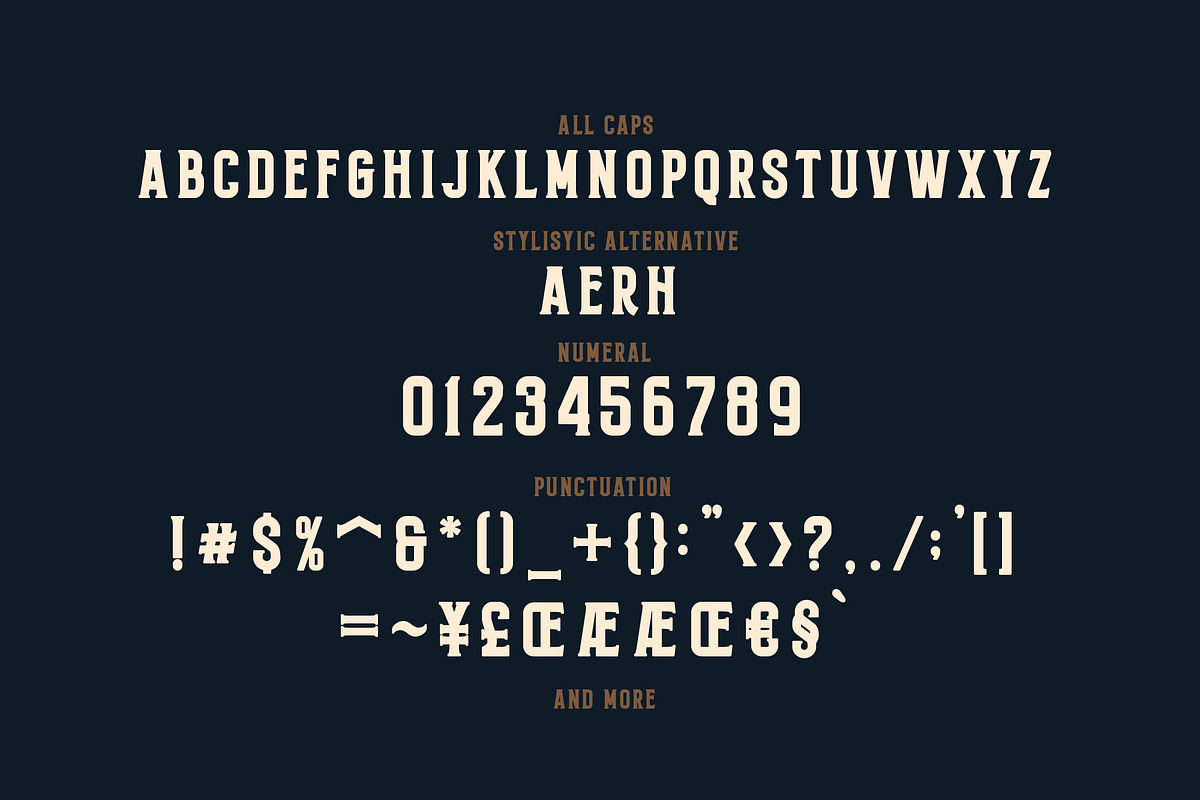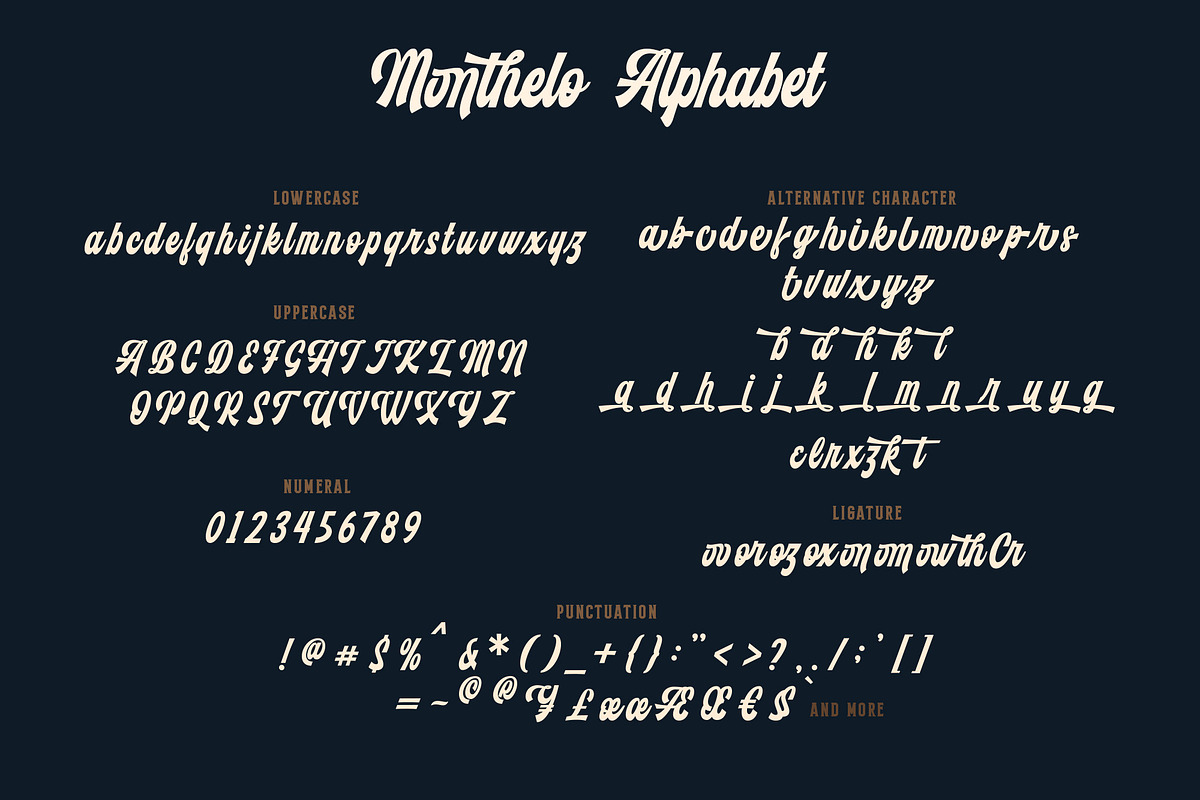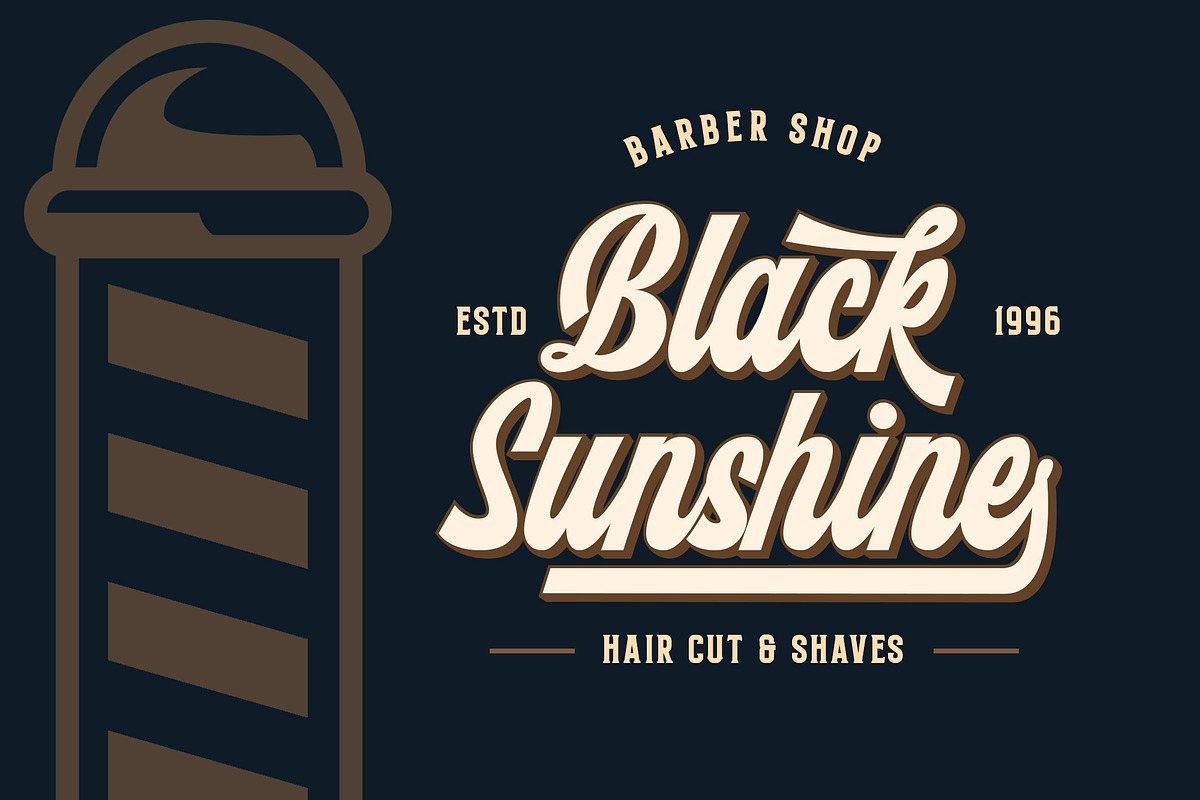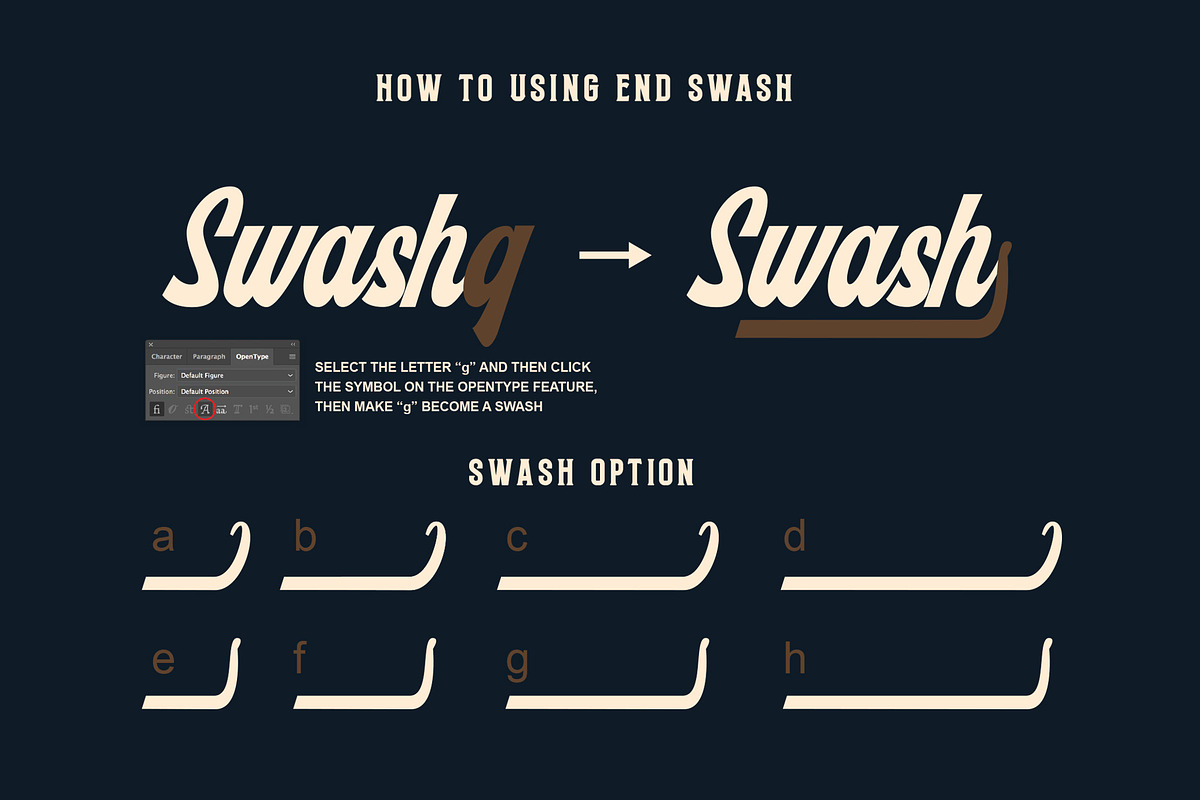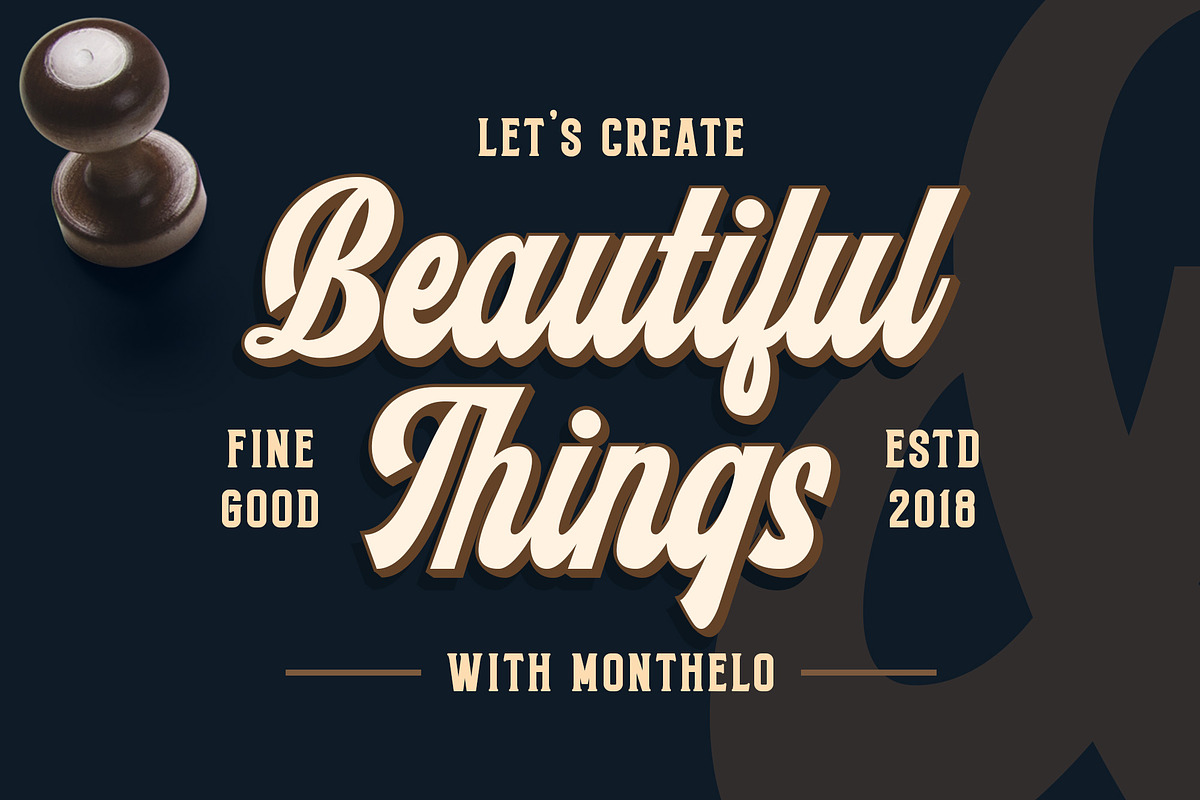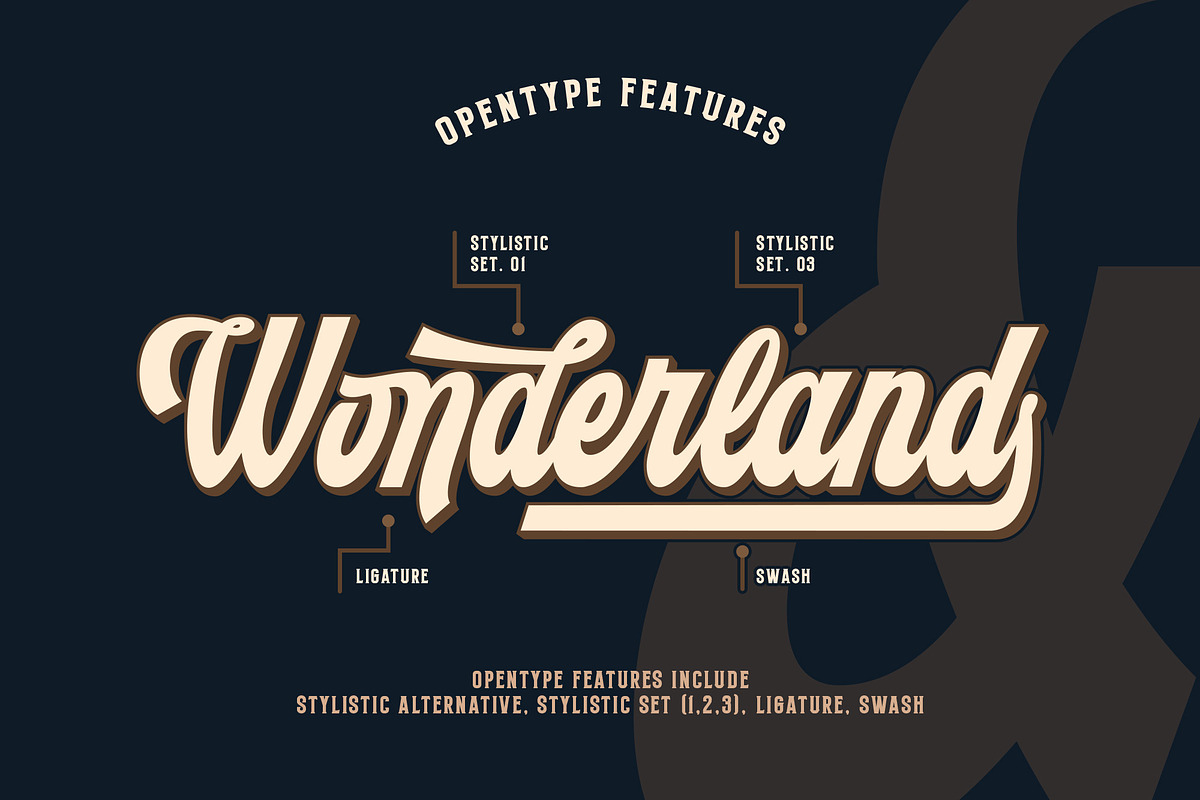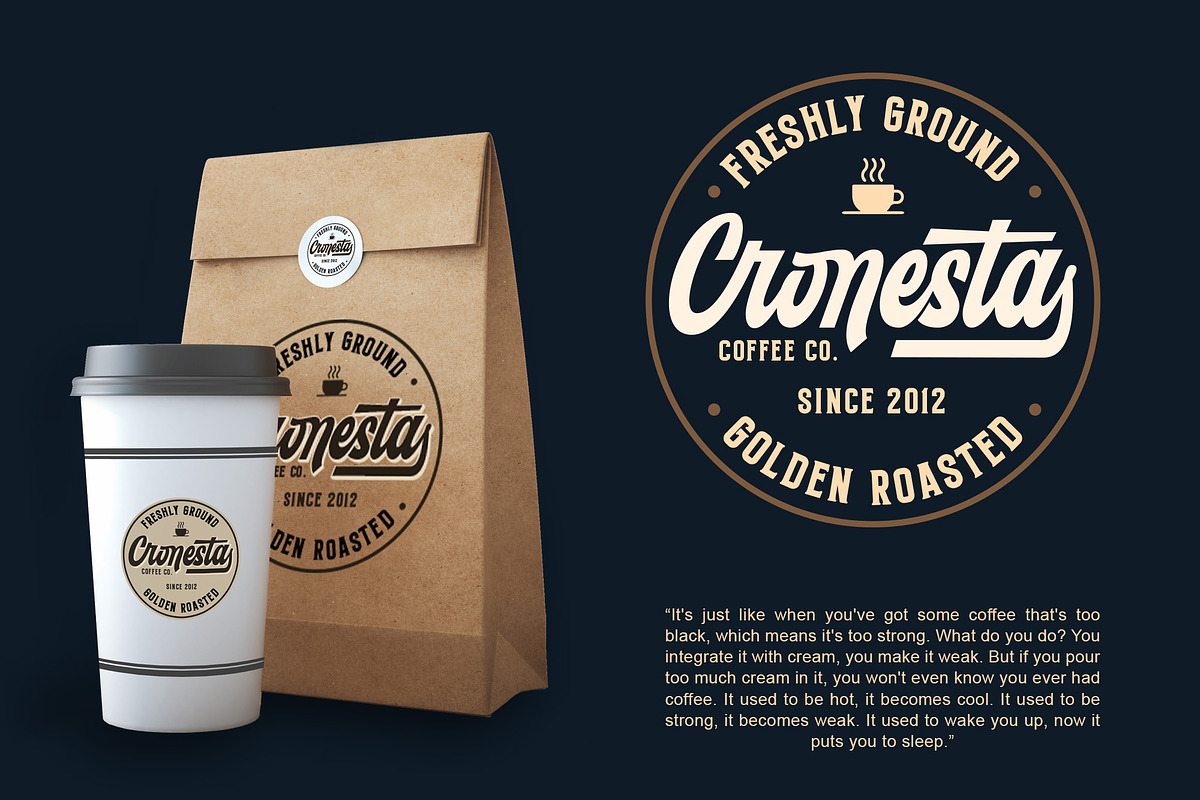
Monthelo Strong Bold Font
Monthelo font under inspiration of vintage bar signage, hotel signage, barbershop signage ect. Montelo has a classic impression but still elegant suitable for modern and classic designs project. Montelo include 3 variation style is regular script, extured and serif. Monthelo are perfect for badge, label, tshirt design, branding, logotype, poster, book cover, packaging and more.
- Swash
Monthelo Strong Bold Font by Blankids Studio fits naturally into Branding, posters, packaging, typography.